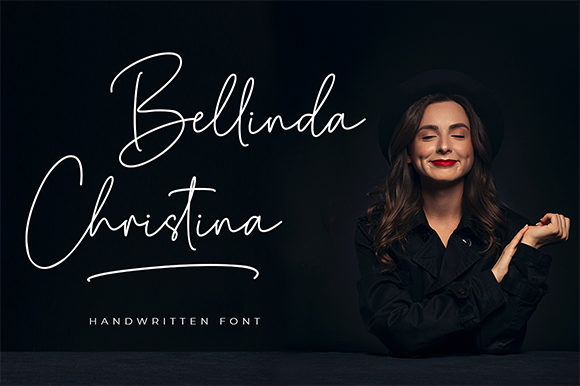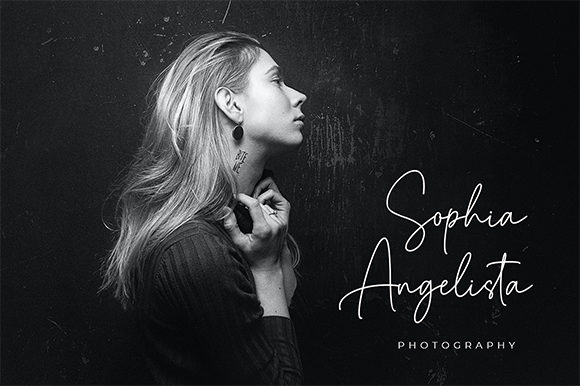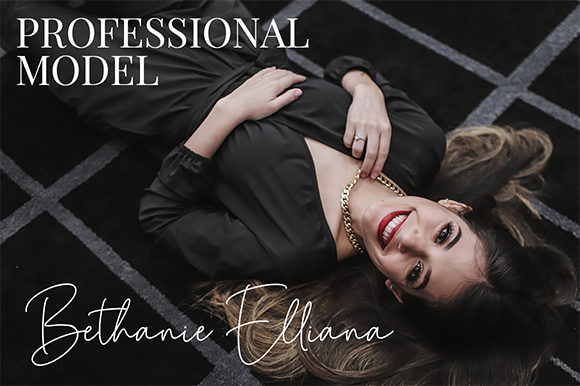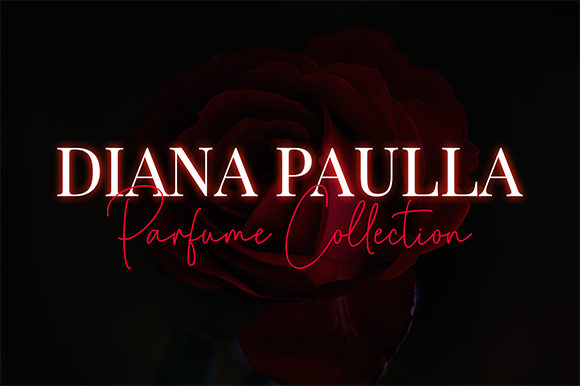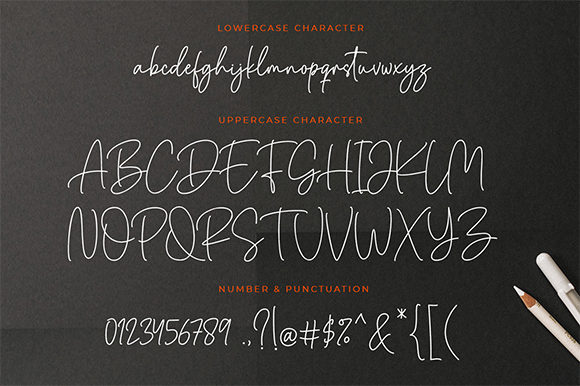
Bellinda Christina Font
About Bellinda Christina Font
Bellinda Christina is inspired by classic typography and brings its own unique style to any design project. Whether you’re looking for fonts for Instagram or calligraphy scripts for DIY projects, this handwritten font will turn any creative idea into a true piece of art!